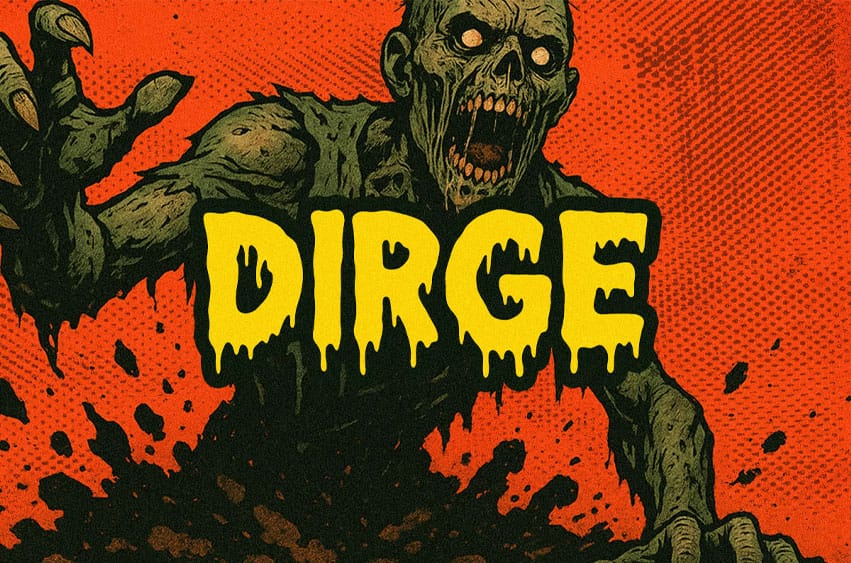
Dirge Font is a spooky comic font with a melting effect.
It fits in headlines, logos, posters, flyers, invitations, name cards, branding materials, print media, editorial layouts, and many more.